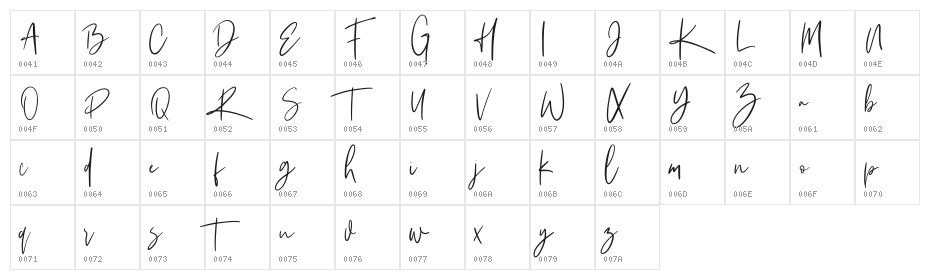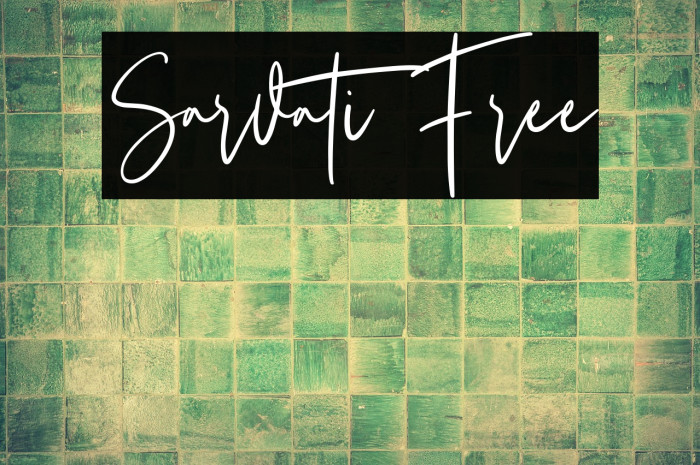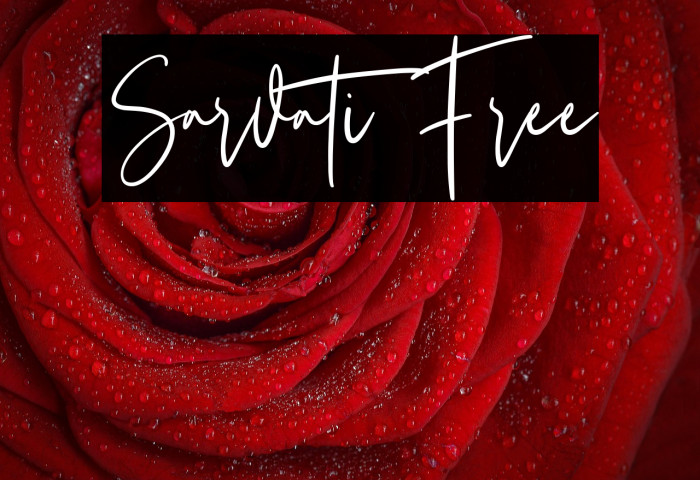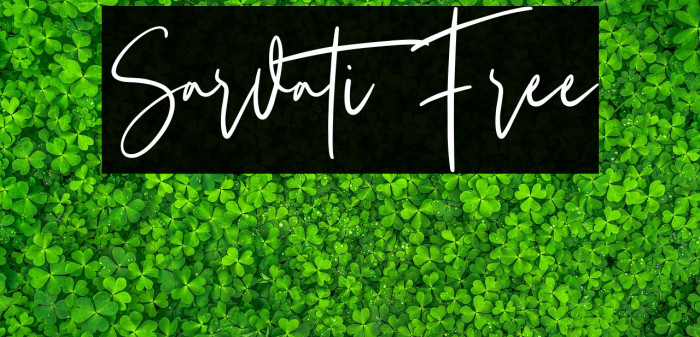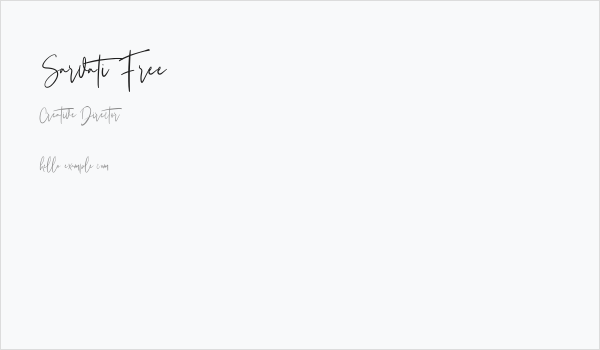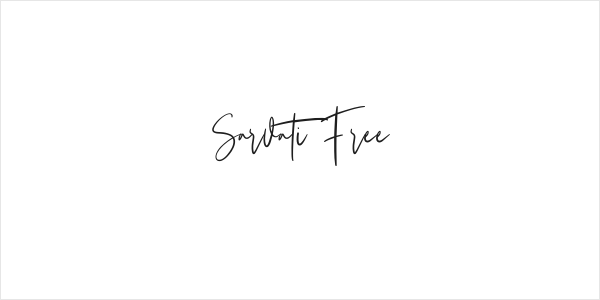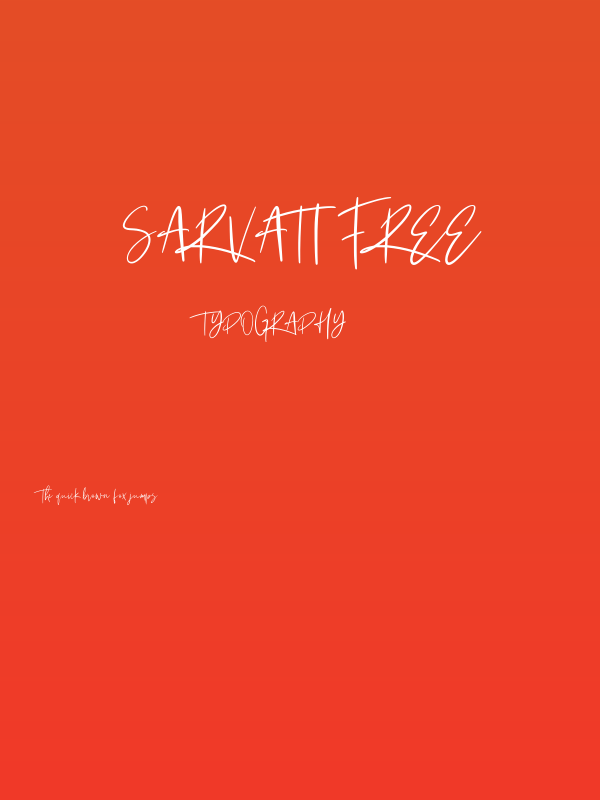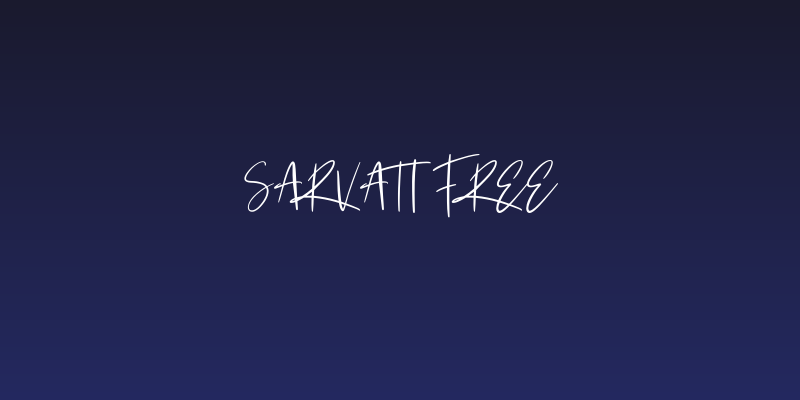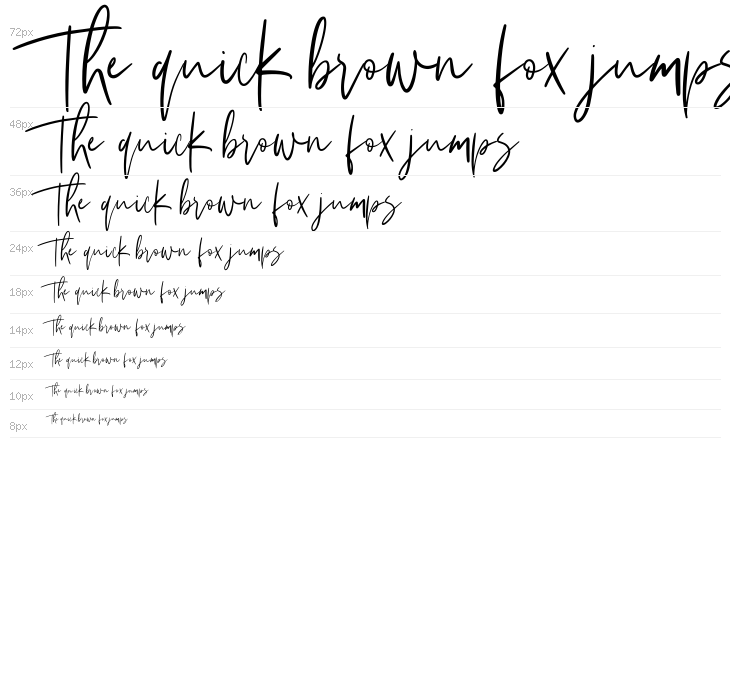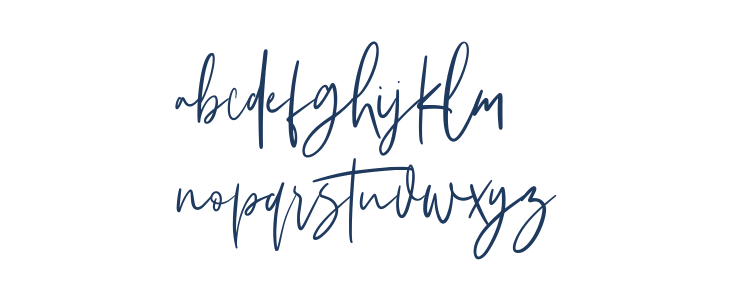
Sarvati Free Font
Sarvati Free Description
This font features a lively and expressive handwritten style, characterized by its flowing, cursive letterforms. The strokes are dynamic and varied, with a playful yet elegant appearance. The uppercase and lowercase letters maintain a consistent rhythm, while the numerals and special characters integrate seamlessly into the overall design. The font's organic and spontaneous feel makes it ideal for projects that require a personal touch or a creative flair. Its legibility is maintained despite the artistic flair, making it suitable for a variety of applications.